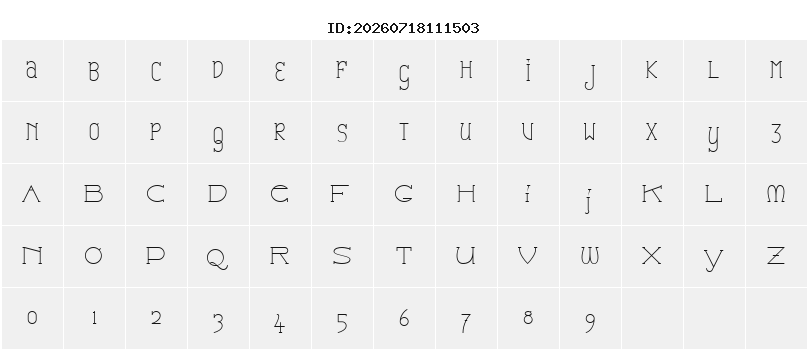
• Font Name: Catharsis Espresso
About Catharsis Espresso.ttf
Catharsis Espresso.ttf is a modern, elegant sans-serif font designed for ultimate readability and visual harmony. Perfect for branding, headlines, web design, and print materials.